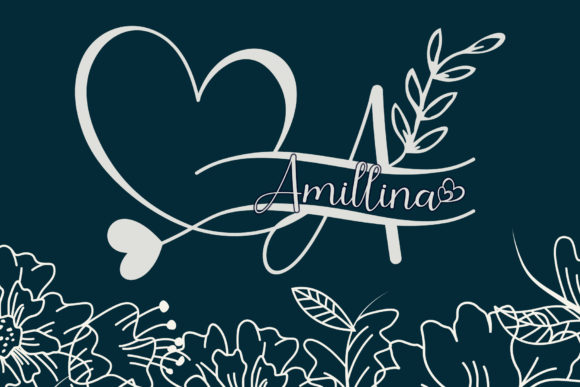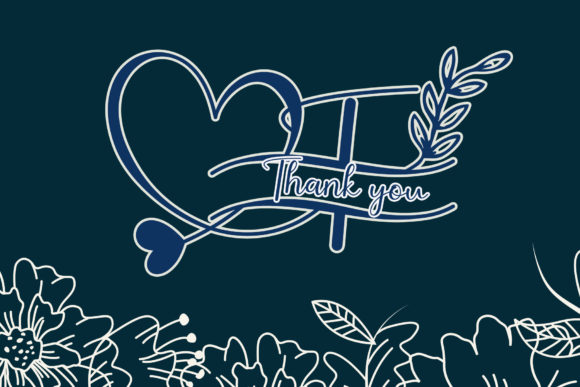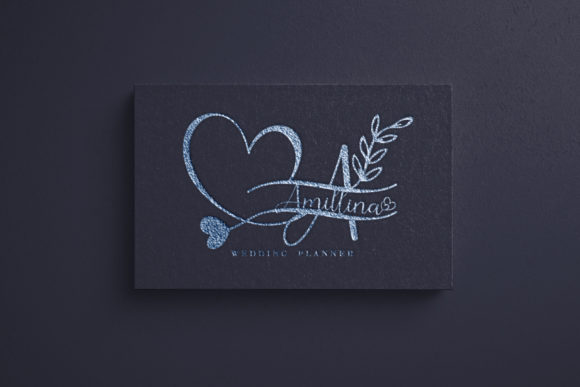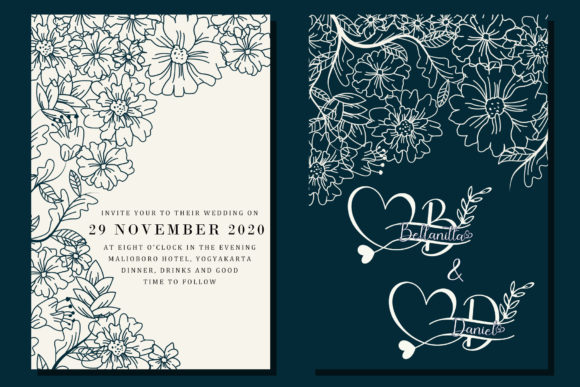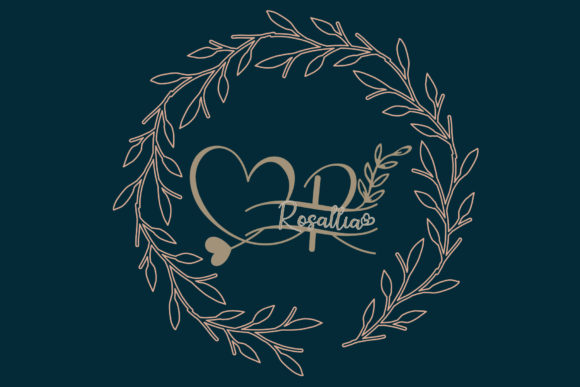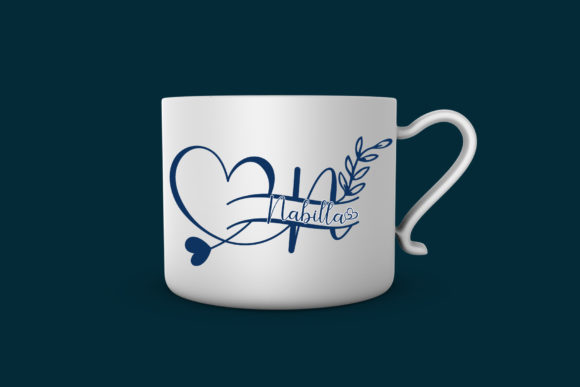
About Amillina Monogram Font
Amillina Monogram is an incredibly beautiful and romantic handwritten font, featuring little hearts as ornaments. It looks stunning on wedding invitations, thank you cards, quotes, greeting cards, logos, business cards and every other design which needs a handwritten touch.